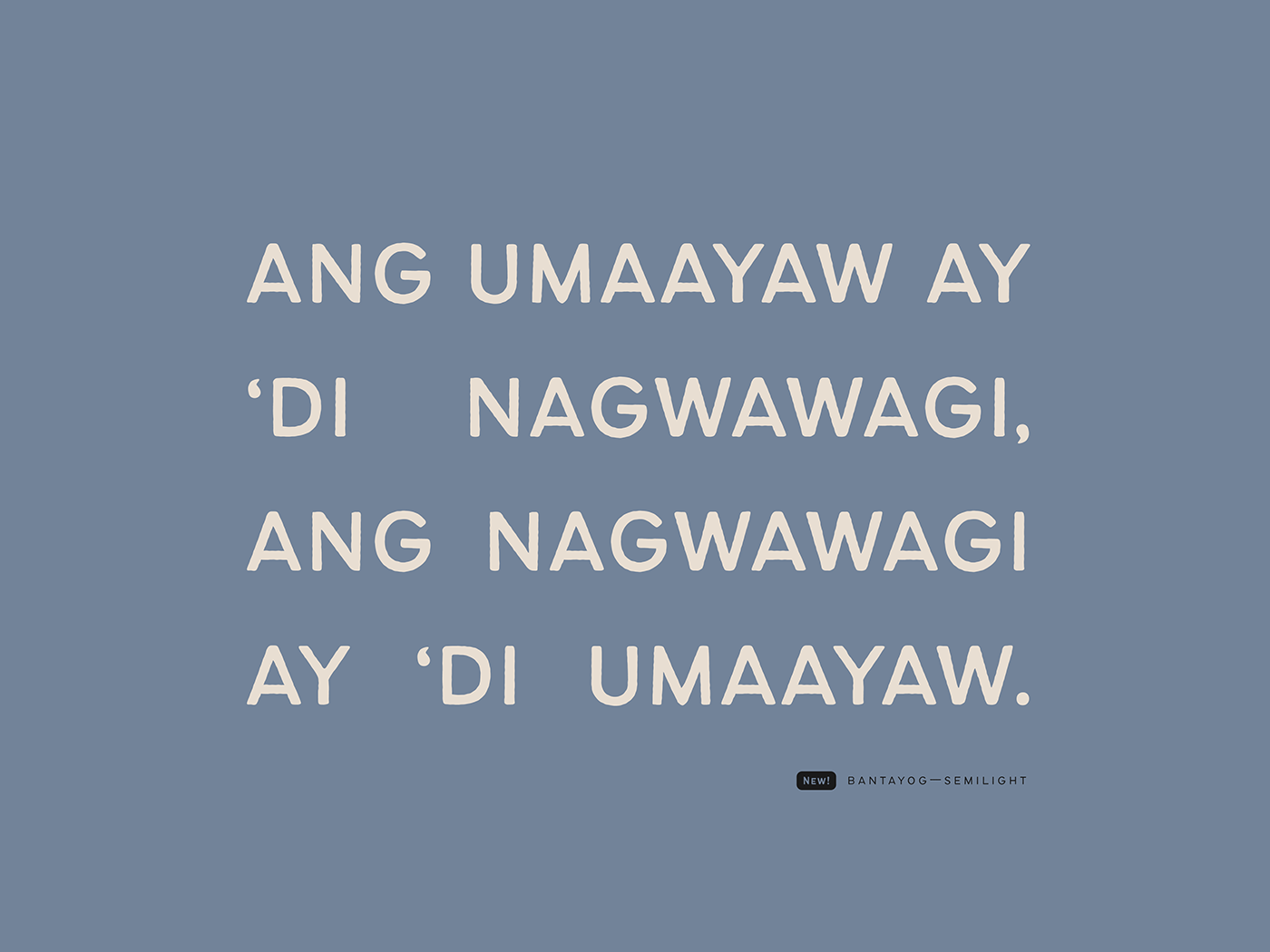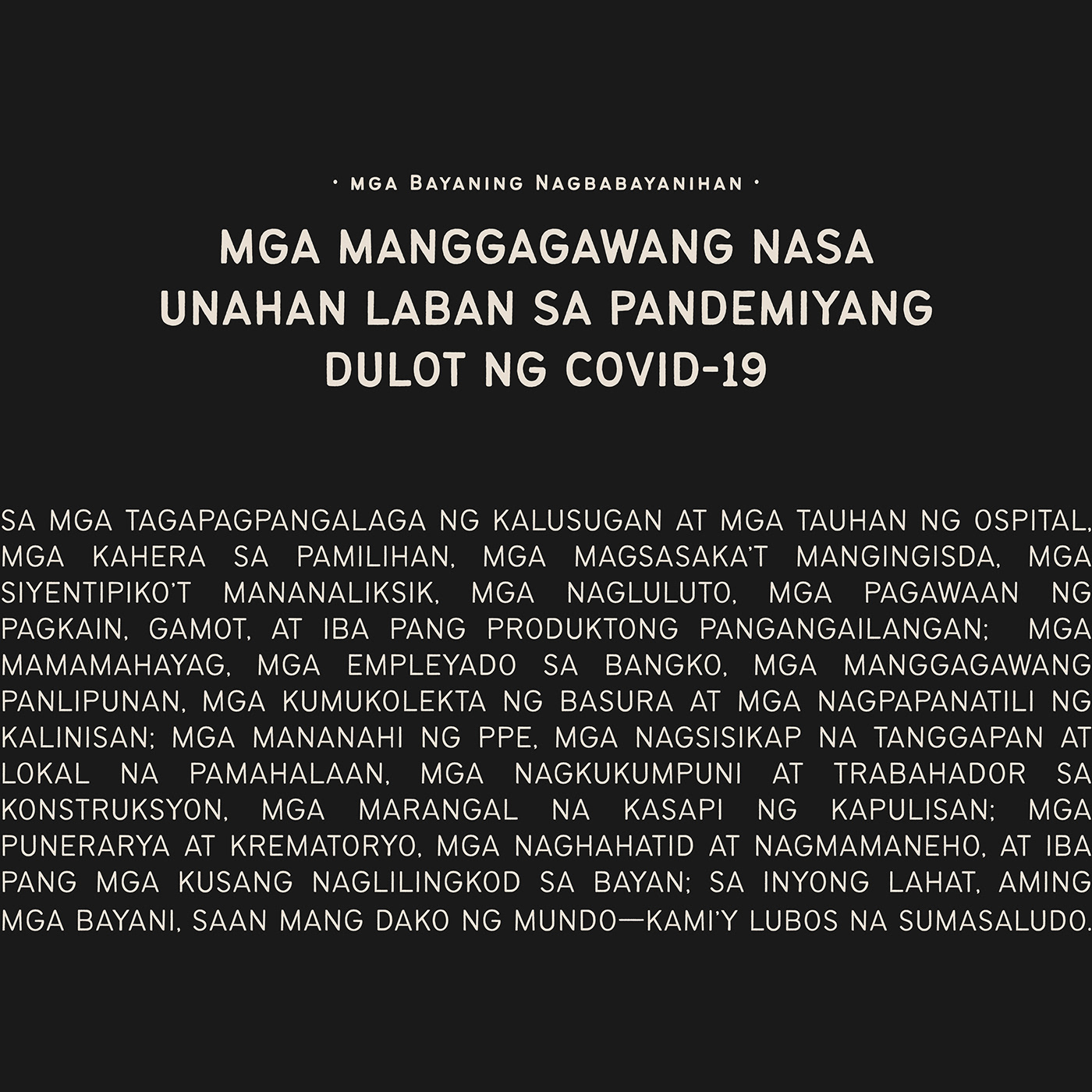
BantayogĀ is a rough, display typeface based on the characters repainted over the worn-out, cast iron text about significant events in the past and the lives of prominent national figuresĀ narrated on Philippine historical markers.
Bantayog is the Filipino word for āmonument,ā which are builtĀ toĀ remind the present and future generations of the bravery and sacrificesĀ the people before them have shownĀ and given, and awaken the patriotism withinĀ each and everyone in honor of the memory of the heroes.
Every year, on the last Monday of August, the Philippines remembers its heroes through the public holiday āNational Heroes' Day.ā Let's review their livesĀ or learn more about themĀ through this type specimen.āāāāāāā
This year 2020, a new breed of heroes have emerged. With PPE as armor,Ā these workers have taken on the frontlines against COVID-19, risking their lives by reporting to duty to provideĀ necessary goods, services, and care in this time of crisis. They only deserve is to be respected, listened to, andĀ treated better.Ā As we commemorate the likes of Rizal and Bonifacio this National Heroes' Day, let's not forget to give honor and express our gratitudeĀ to our frontliners for their sacrificesĀ and invaluable service to the nation.Ā
Latin alphabet support
Philippine Tagalog script support